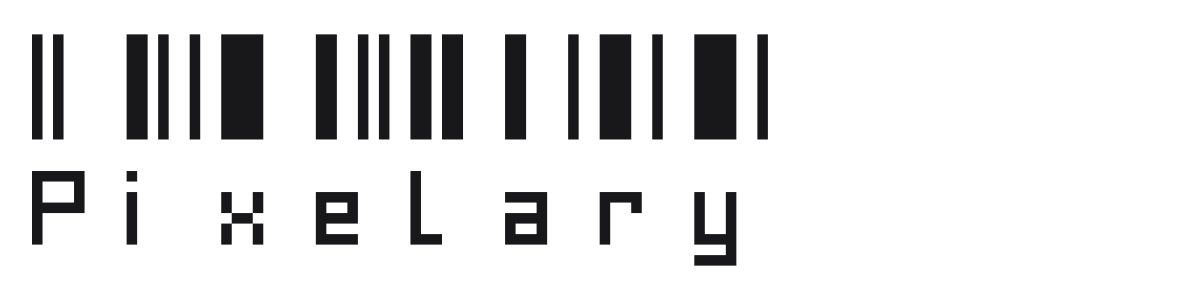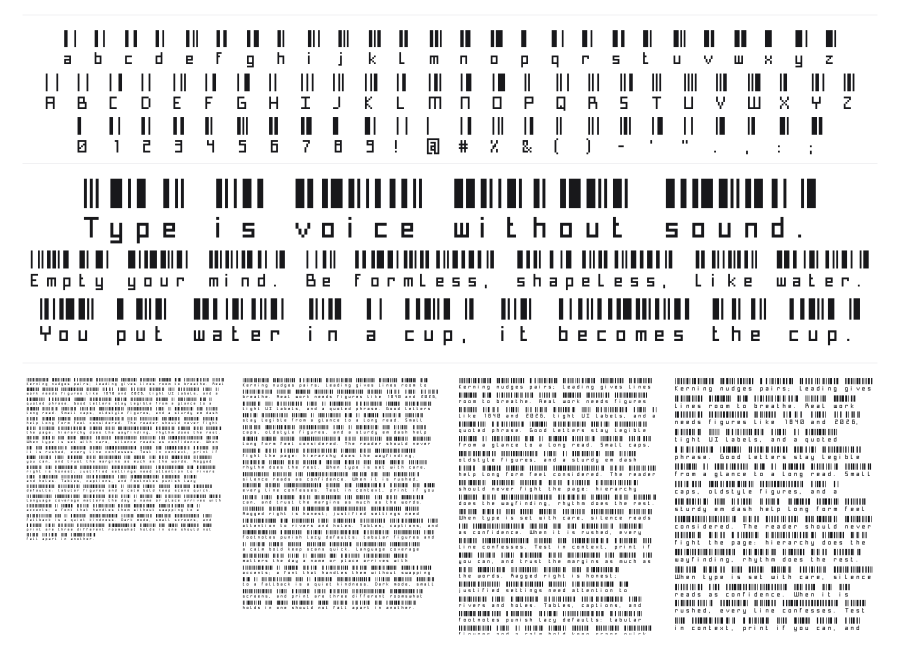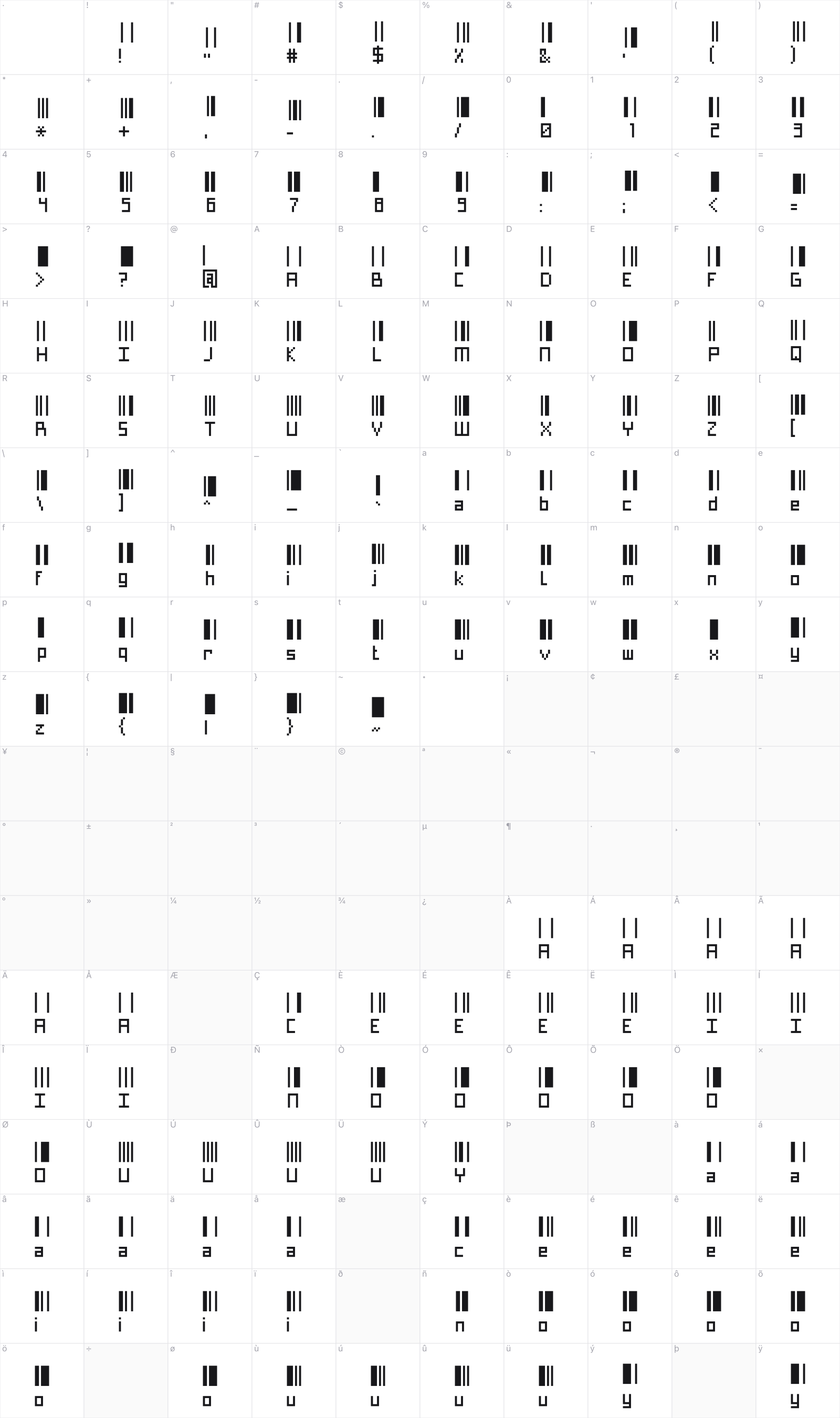
Pixelary
Pixelary is a pixel font where each character wears its own binary encoding as a barcode above the letter. Built on a coarse bitmap grid with chunky rectangular strokes, it turns data representation into decoration without sacrificing readability. The concept is genuinely clever: those stripes aren't arbitrary ornamentation, they're information.